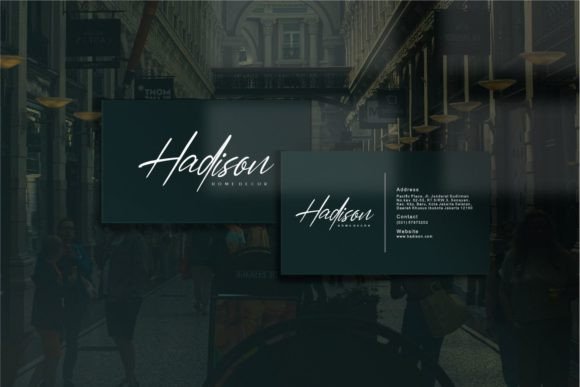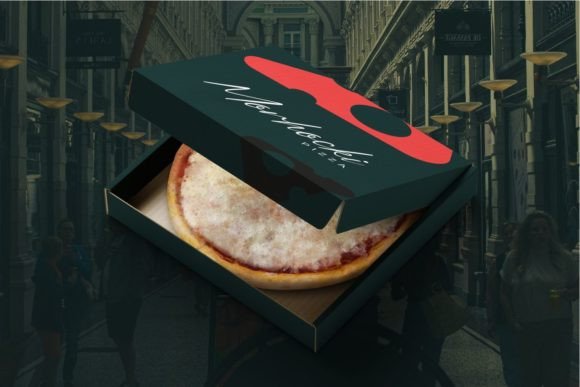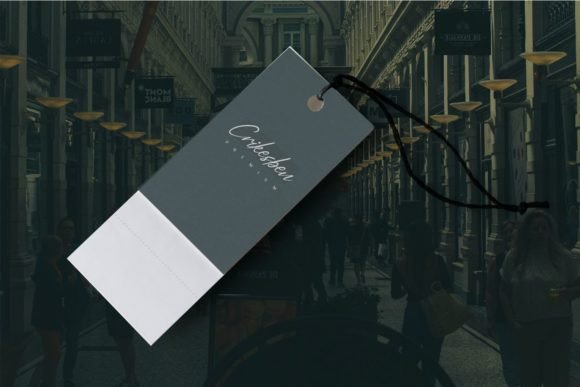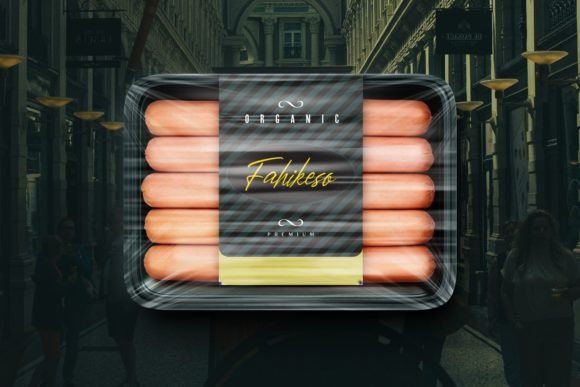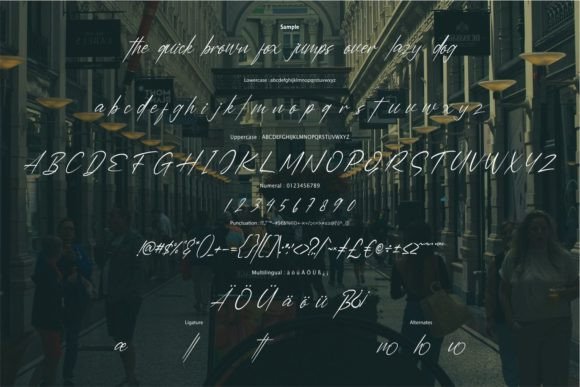
Discover the Delicate Charm of Brethesom Font
Have you ever found yourself rummaging through your craft supplies, searching for the perfect combination of colors and textures to bring a design to life? That moment of creative spark, when everything falls into place and your imagination runs wild, is what makes design so magical. It’s the kind of moment that can be sparked by the right font, one that whispers sweet nothings to your imagination and guides your creative journey.
Enter Brethesom Font, a dainty and elegant handwritten font that is sure to captivate designers and crafters alike. Its delicate characters and original look make it the perfect choice for a wide range of creative projects, from letterheads and titles to stationery. With Brethesom Font, the possibilities are endless, and its versatility is sure to make it a valuable addition to any designer’s toolkit.
Brethesom Font Key Features
- Font Family: Brethesom is a script font, ideal for creating elegant and sophisticated designs.
- Font Size: The font size ranges from 12pt to 120pt, making it suitable for various design applications.
- Resolution: Brethesom is optimized for print and digital use at resolutions up to 300 DPI.
- Unique Characteristics: This script font features beautiful, flowing connections between letters, making it perfect for invitations, wedding designs, and other special occasions.
- Language Support: Brethesom supports a wide range of languages, including Latin-based alphabets and many non-Latin scripts.
Design Review: Brethesom Font
I’ve had the chance to work with Brethesom Font, and here’s my honest review.
- Unique and elegant design: Brethesom Font has a distinct, hand-drawn feel that adds a touch of sophistication to any project.
- Legibility: Despite its decorative nature, the font is surprisingly easy to read, making it suitable for body text and headlines.
- Customization options: Brethesom Font comes in a range of weights and styles, giving you the flexibility to adapt it to different design needs.
- Limited character set: Brethesom Font is designed for English and other Latin-based languages, which may limit its use for multilingual projects.
- Not suitable for very small text sizes: Due to its decorative nature, Brethesom Font may become illegible when used at very small text sizes.
Brethesom Font is a beautiful and elegant font that works well for projects where you want to add a touch of sophistication and whimsy. While it has some limitations, it’s a great choice for designers looking for a unique and customizable font. Overall, I’d recommend Brethesom Font for projects that require a high level of design flair.
Tips for Getting the Most Out of Brethesom Font
Here are some tips to help you get the most out of Brethesom Font:
- Use Brethesom Font for headings and titles to add a touch of elegance to your design.
- Pair Brethesom Font with other fonts to create a unique and eye-catching design.
Alternatives to Brethesom Font
Brethesom Font is a beautiful, elegant script font, but sometimes you may want to explore other options. Here are a few alternatives:
Carolyna Pro is a modern, elegant script font that is perfect for luxury brands, high-end fashion, and wedding invitations. It has a sophisticated and refined feel that is similar to Brethesom Font, but with a more contemporary twist. Use Carolyna Pro when you want to convey elegance and sophistication.
Comparison: Carolyna Pro has a more modern feel than Brethesom Font, but both fonts share a similar level of elegance and sophistication.
Pacifico is a beautiful, handwritten script font that is perfect for creative projects, such as book covers, posters, and social media graphics. It has a relaxed and casual feel that is similar to Brethesom Font, but with a more laid-back vibe. Use Pacifico when you want to convey a sense of relaxation and creativity.
Comparison: Pacifico has a more casual feel than Brethesom Font, but both fonts share a similar level of beauty and elegance.